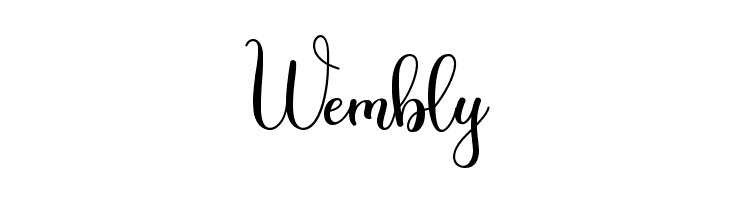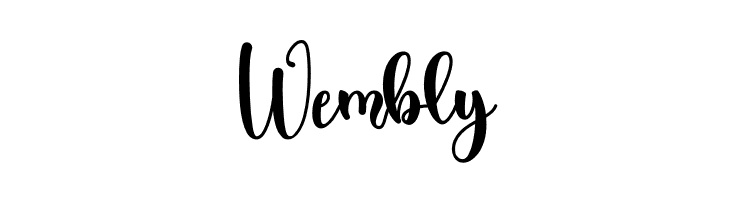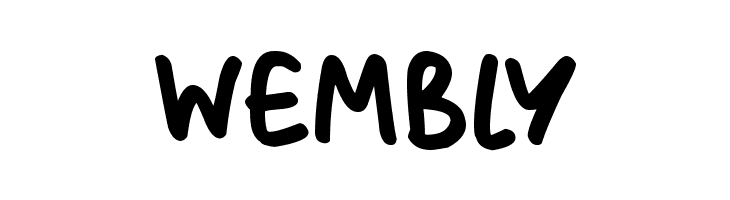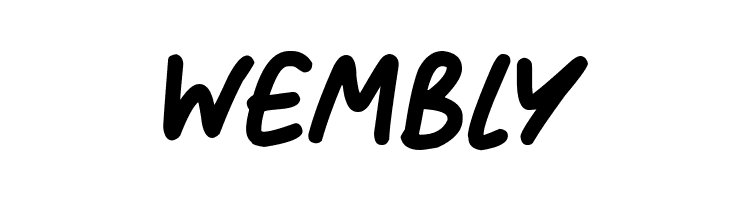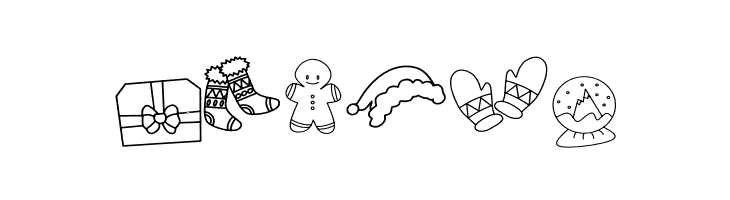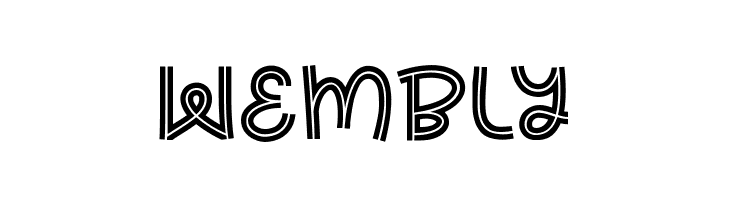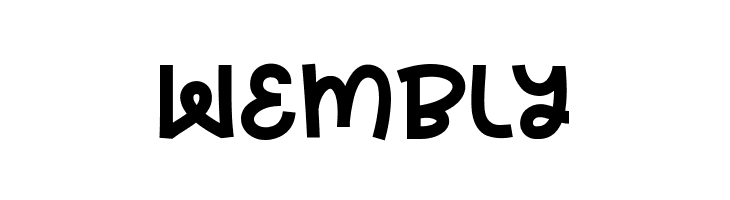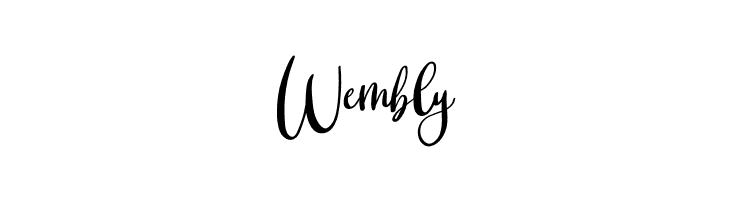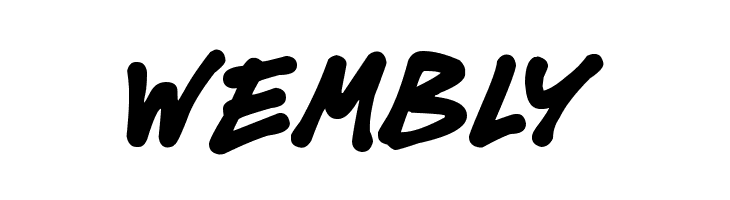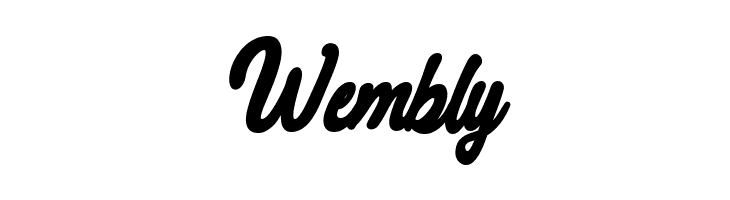
A whimsical, festive script font with decorative elements like stars and hearts.
A playful, festive script font with flowing, interconnected letters and decorative flourishes.
Bold, dripping display font with a horror-inspired style.
Bold, decorative brush script with playful swashes and high contrast.
A charming and elegant script font with flowing, cursive letterforms.
Ornate script with heart flourishes and dramatic swashes.
Hand-drawn Christmas doodle icon set.
Casual, handwritten script with tall, flowing letters and playful energy.
A festive, cursive font with elegant loops and swirls, perfect for holiday themes.
Bold, hand-painted brush script with energetic strokes.
Playful, hand-drawn sans-serif with rounded, tall characters.
Tall, playful handwritten script with a casual, whimsical feel.
Bold, playful handwritten font with rounded, brush-like strokes.
Ornate calligraphic script with dramatic swashes and high contrast.
Festive, decorative display font with snowflake accents.
A bold, playful font with rounded, festive characters ideal for holiday themes.
A playful, festive font with bold, rounded characters and decorative inline elements.
A bold, playful handwritten font with rounded, consistent strokes.
A bold, playful script font with a handwritten style.
Rounded, playful sans-serif with a hand-drawn feel.
An elegant, flowing script font with intricate loops and flourishes.
A decorative script font with festive star embellishments, perfect for holiday themes.
A festive decorative font featuring charming Christmas-themed symbols.
A fun, decorative sans-serif font with a festive, hand-drawn style.
Casual handwritten font with rounded, playful forms.
A bold, playful script font with a festive and dynamic style.
Festive, cookie-themed decorative font with bold, whimsical shapes.
Festive decorative font with star and ornament details.
Festive decorative font with stars and string lights for a holiday feel.
Decorative holiday font with Christmas tree accents and playful curves.
A bold, playful script font with smooth, flowing curves.
A playful, festive script font with elegant loops and swirls.
A festive, cursive script font with a playful and elegant style.
A bold, italicized script font with a festive and playful style.